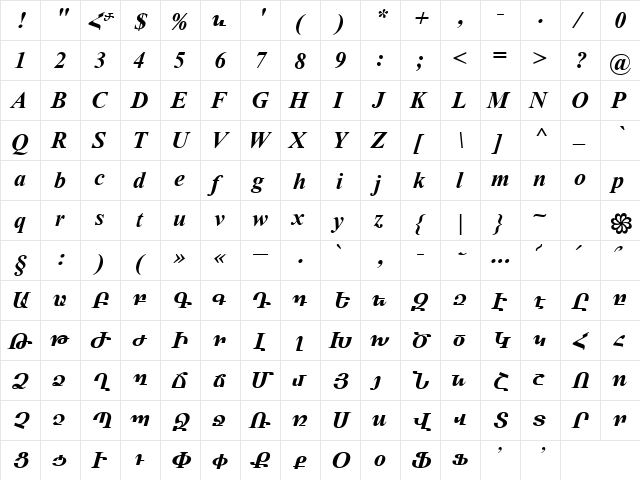
ArTarumianMatenagir Bold Italic Font Preview
Design Context for ArTarumianMatenagir Typeface
ArTarumianMatenagir takes a measured approach to typography — its balanced proportions and neutral character make it a reliable workhorse for both digital and print work. Its italic angle brings a sense of urgency and motion to the letterforms. The heavy weight commands attention and anchors typographic hierarchies.
Pro Tip: Try ArTarumianMatenagir for annotation and caption copy alongside an upright companion — the contrast in angle creates a dynamic but ordered typographic system.